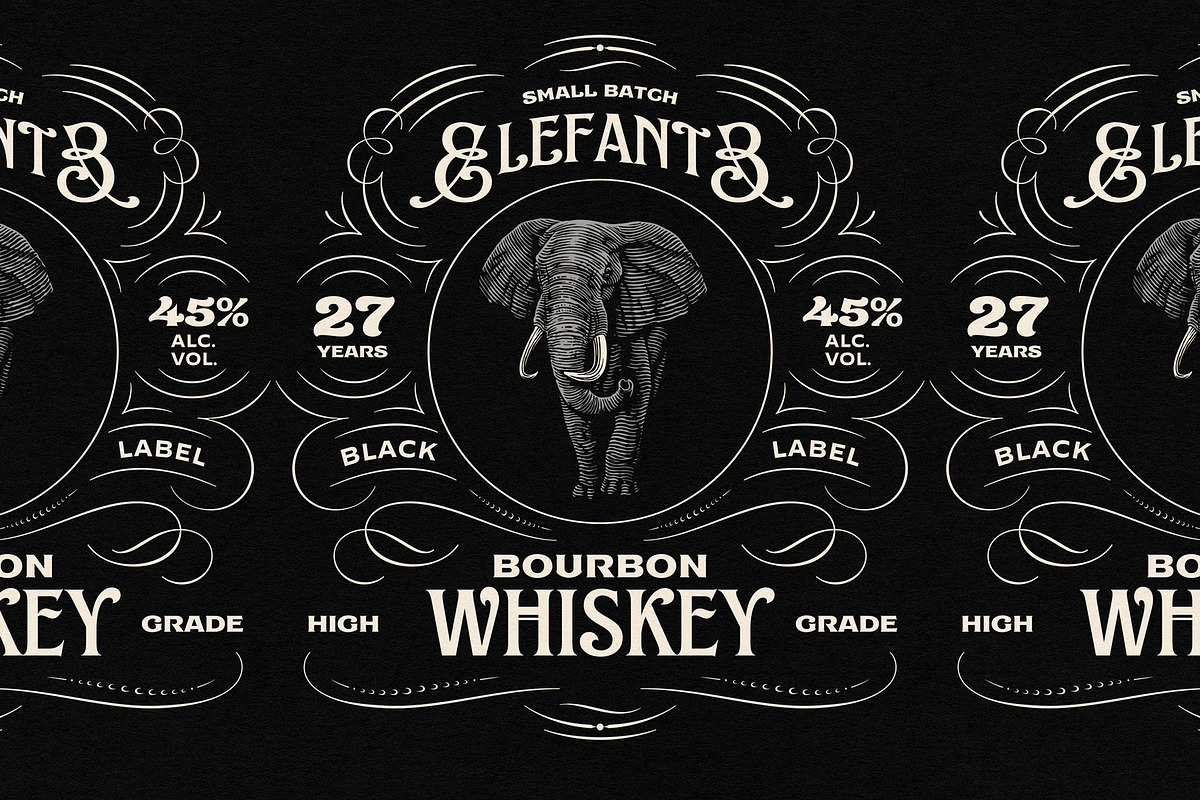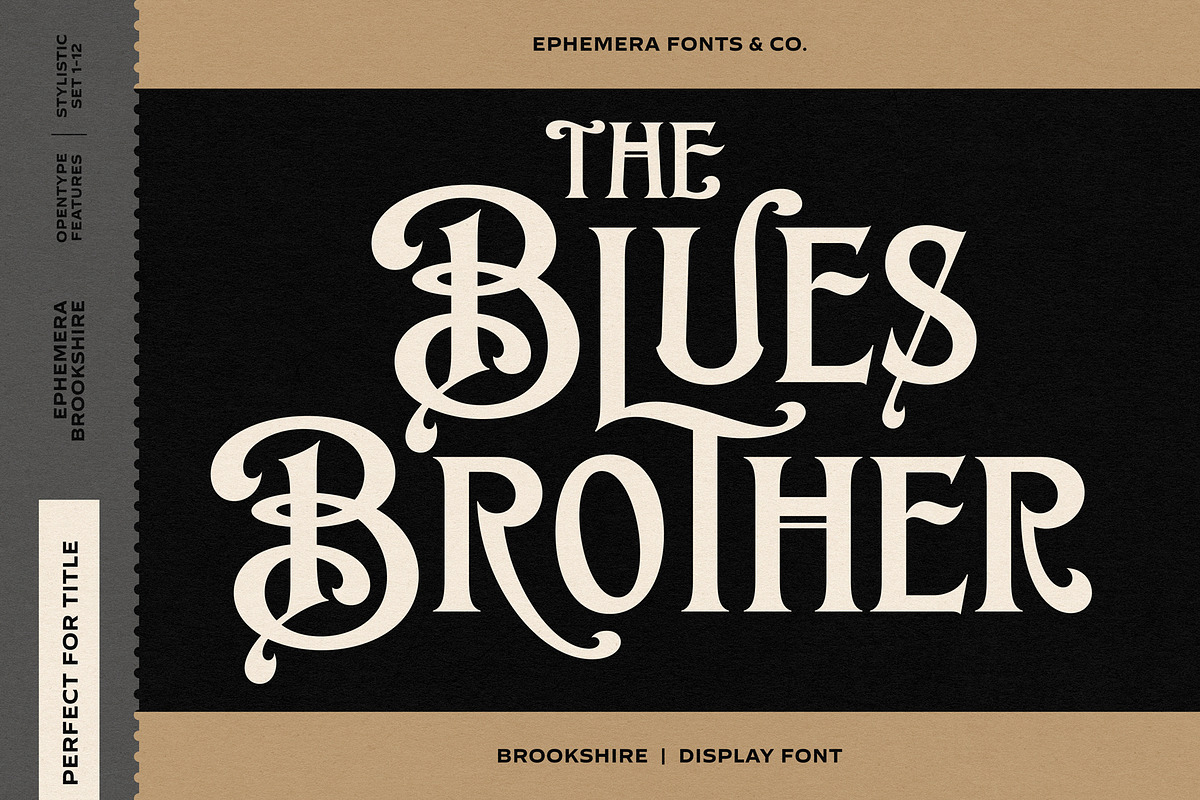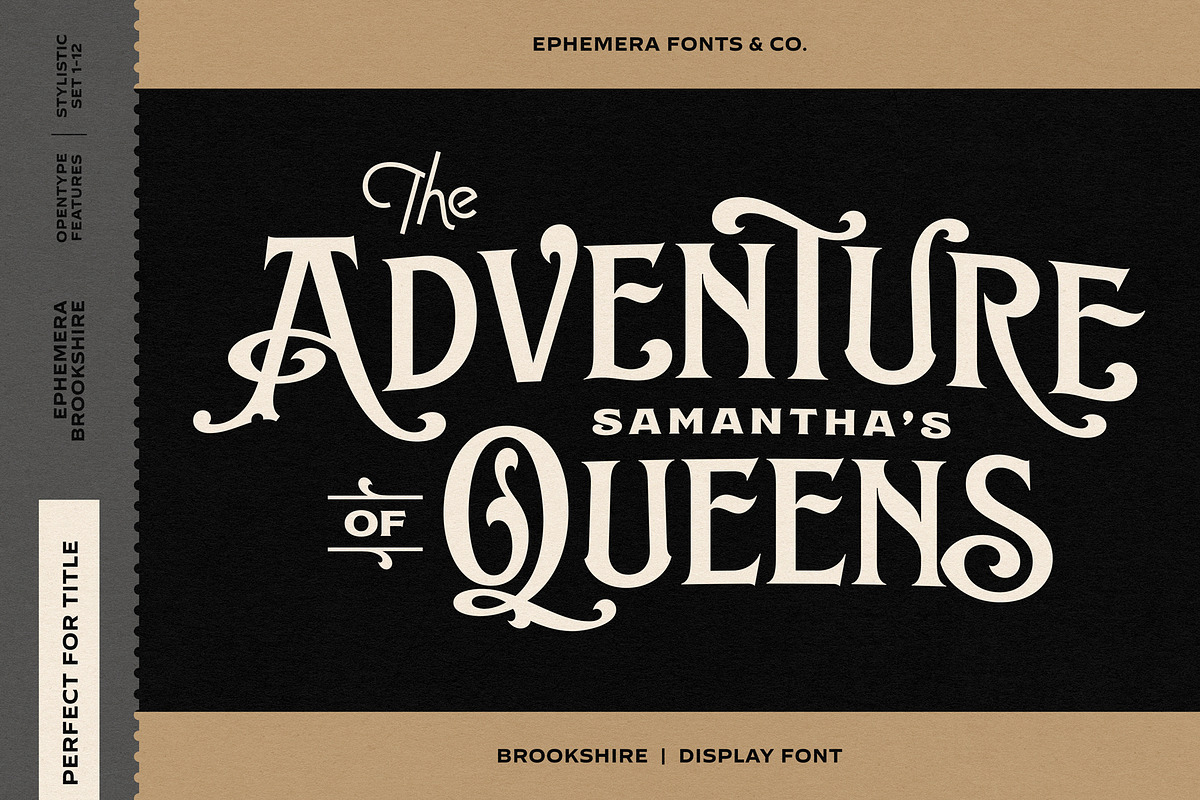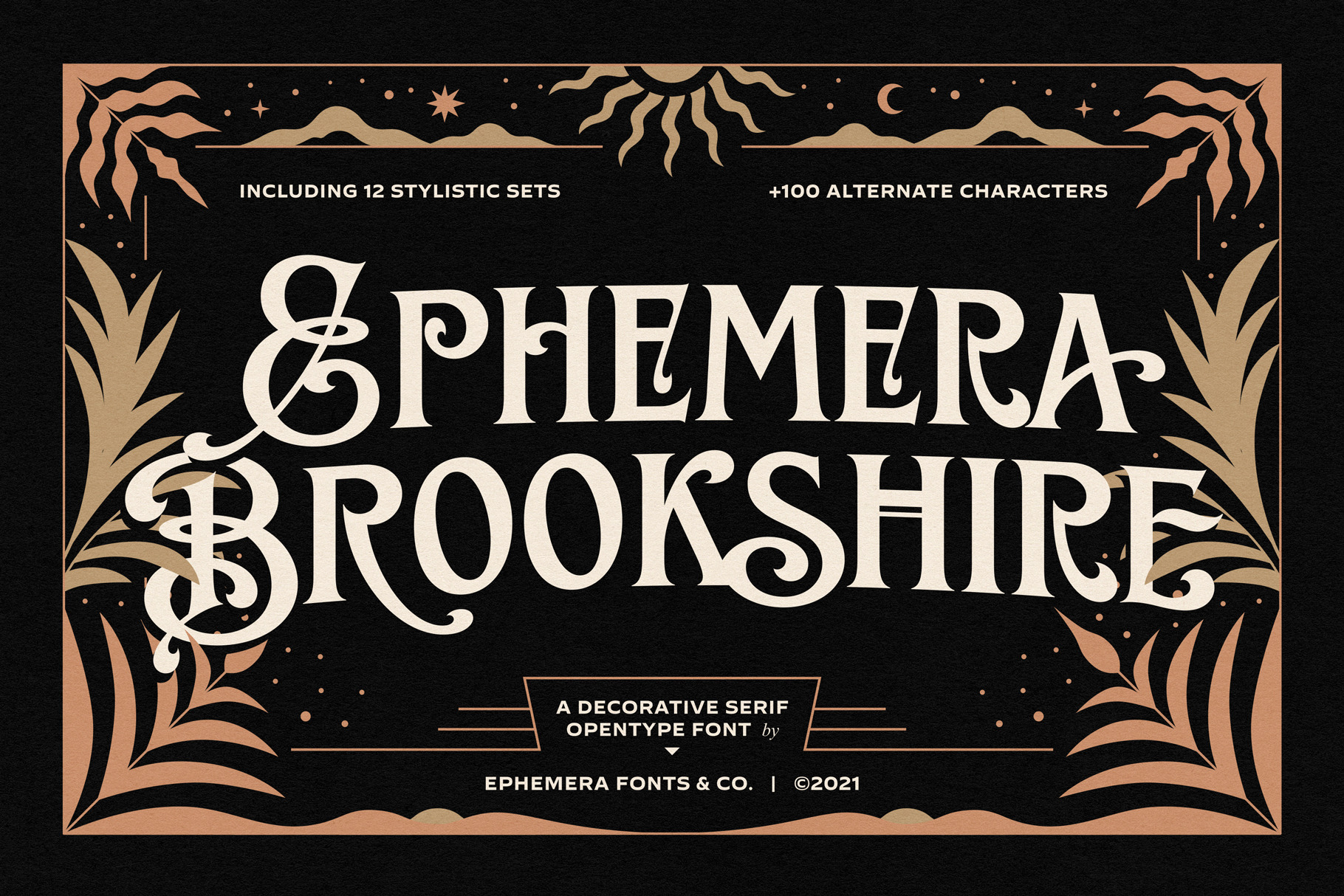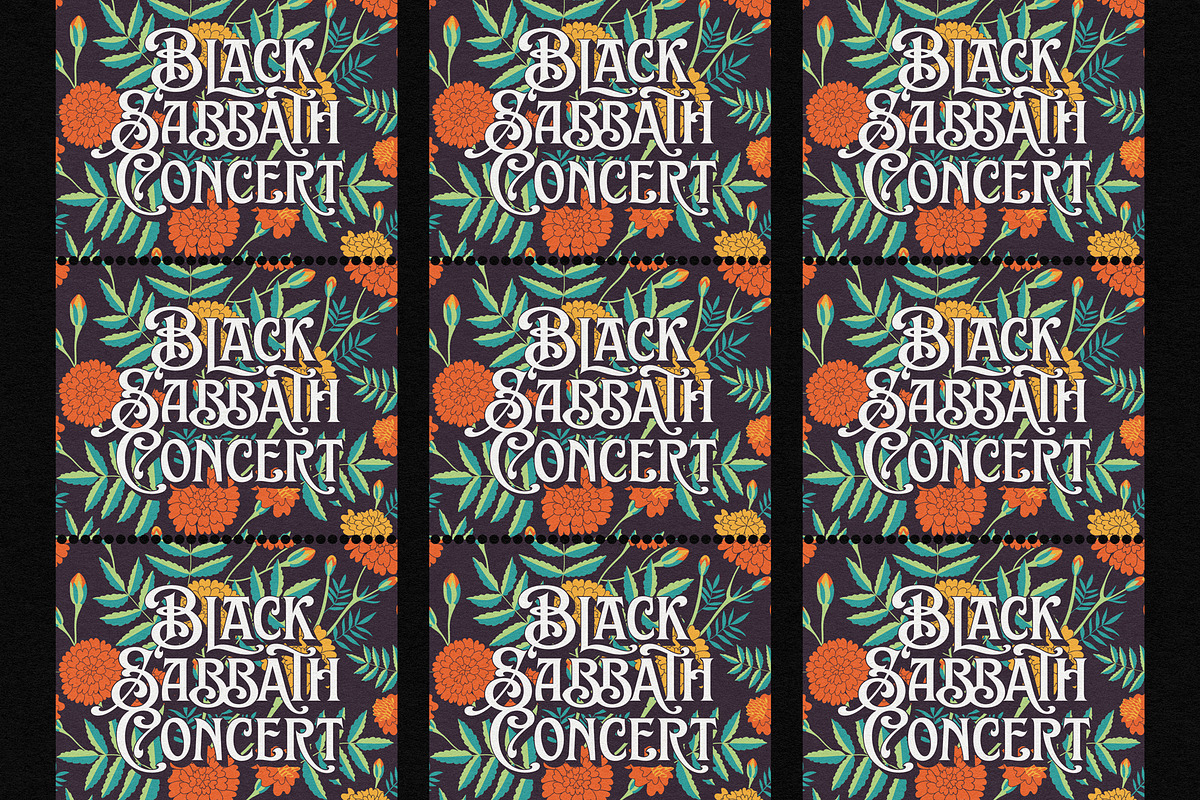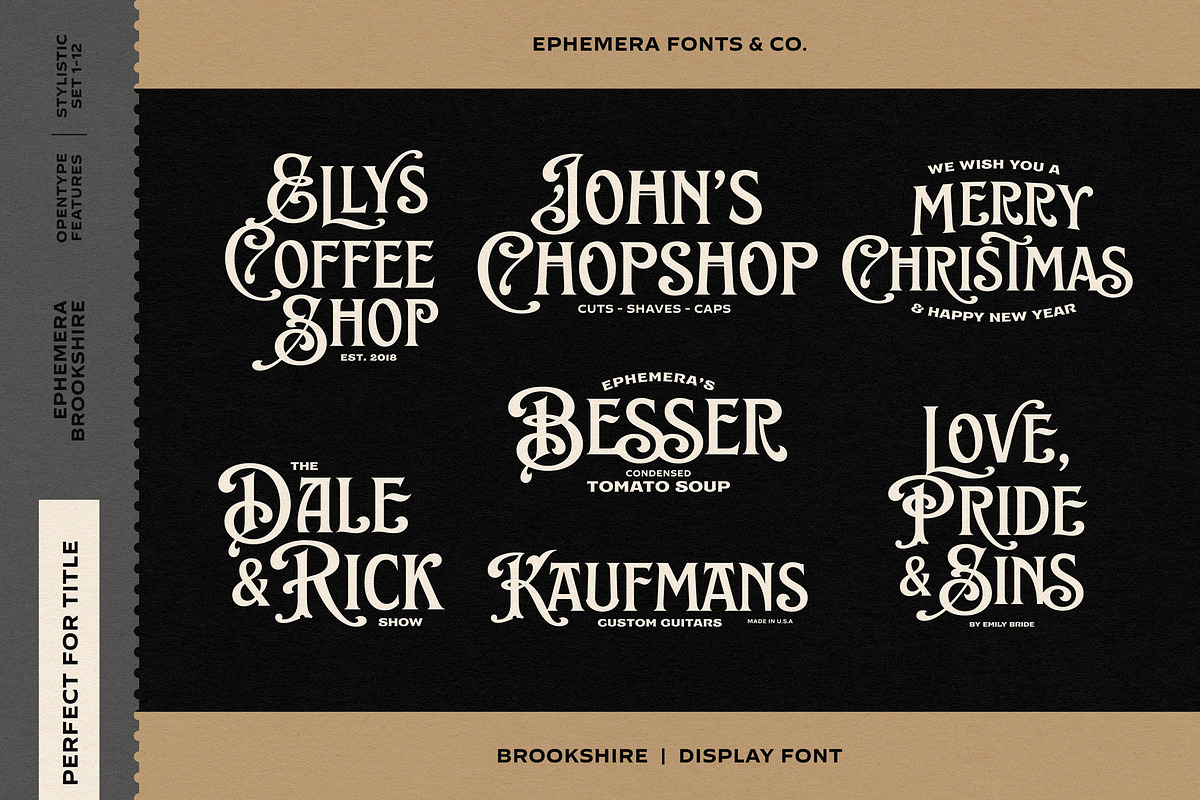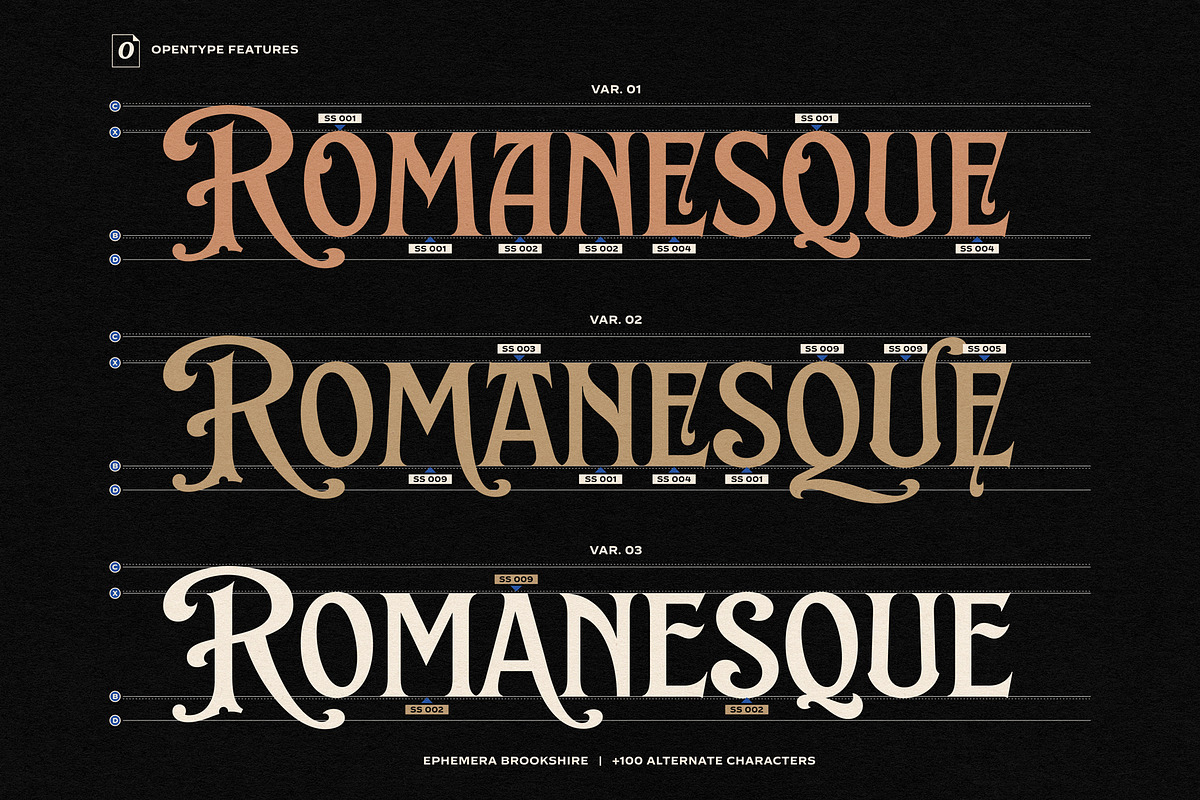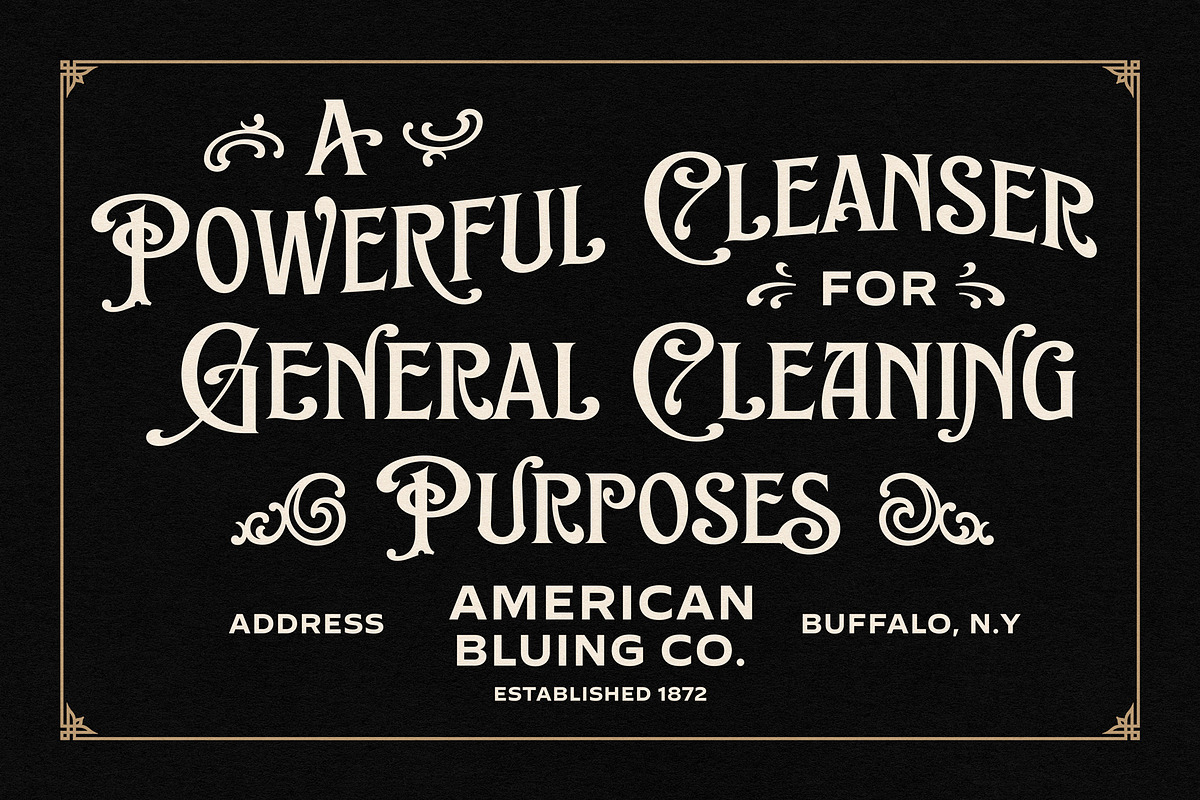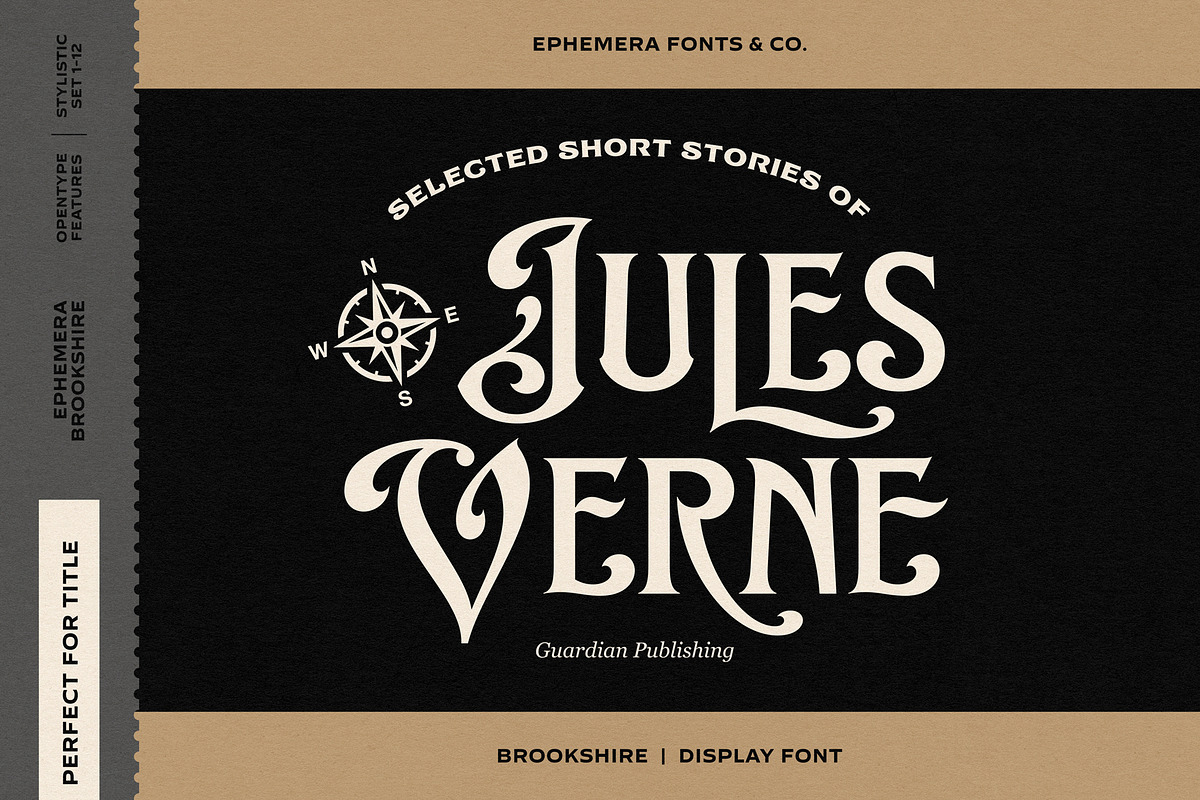
Brookshire - Timeless Elegance Font
EFCO Brookshire was inspired by the beauty lettering of ephemera prints. Ideal for product names, packages, labels, old fashioned signs and everything with specific characteristics of past times.